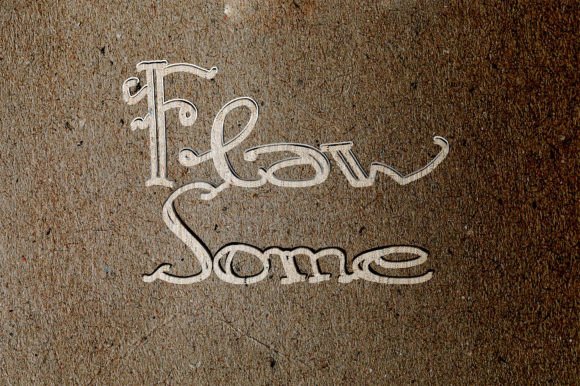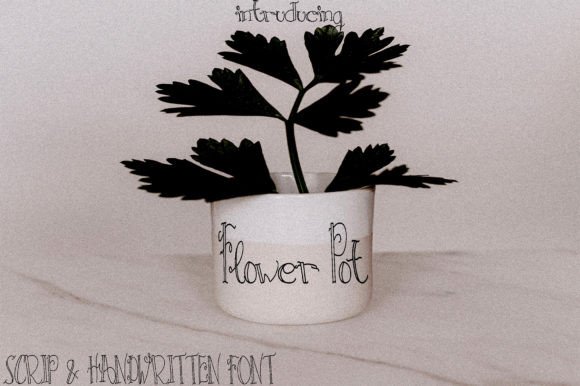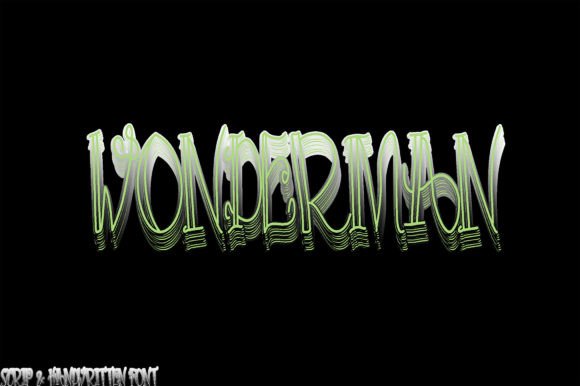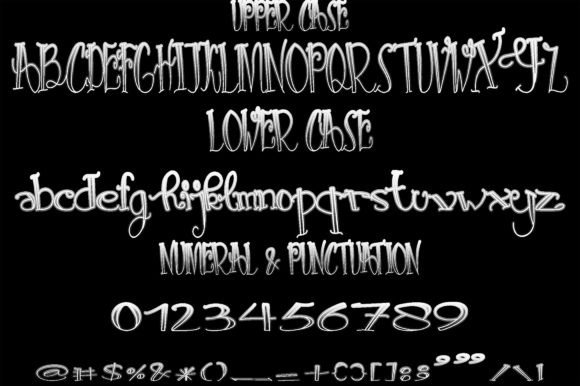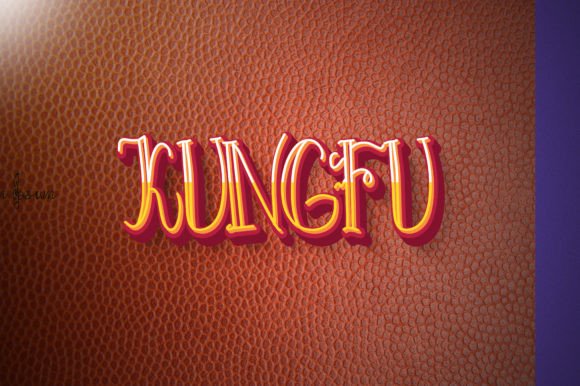
Introducing Flaw Some Font: The Ultimate Playful Handwritten Font
Are you tired of using the same old boring fonts in your designs? Look no further! Flaw Some Font is here to revolutionize your creative projects with its fun, playful, and whimsical touch. This beautiful handwritten font is perfect for designers, crafters, and anyone looking to add a dash of personality to their work.
What Makes Flaw Some Font So Special?
Flaw Some Font is a one-of-a-kind, handmade font that exudes a sense of playfulness and quirkiness. Its unique and irregular strokes make it stand out from the crowd, adding a touch of whimsy to any design. Whether you’re working on a logo, a poster, a social media graphic, or a craft project, Flaw Some Font is sure to bring a smile to your face and make your designs shine.
Key Features of Flaw Some Font
- Handwritten with love: Flaw Some Font is carefully crafted by hand, giving it a personal and human touch that’s hard to replicate with machine-made fonts.
- Whimsical and playful: This font is perfect for designs that require a dash of fun and personality.
- Quirky and irregular: Flaw Some Font’s unique strokes and imperfections make it a standout in any design.
- Multipurpose: Flaw Some Font can be used for a wide range of projects, from logos and posters to social media graphics and craft projects.
How to Use Flaw Some Font in Your Designs
Using Flaw Some Font in your designs is easy! Here are a few tips to get you started:
- Pair it with a simple font: Flaw Some Font’s playful nature makes it perfect for pairing with a simpler font to create a beautiful contrast.
- Experiment with colors: This font looks great in a variety of colors, so don’t be afraid to get creative and try out different hues.
- Add some texture: Flaw Some Font pairs well with textures and patterns, adding an extra layer of depth to your designs.
- Keep it simple: Don’t overcomplicate your design – Flaw Some Font’s playful nature can shine on its own.
Flaw Some Font is a dream come true for designers and crafters who want to add a personal touch to their work. Whether you’re creating:
- Logos and branding materials: Flaw Some Font’s unique personality makes it perfect for creating memorable logos and branding materials.
- Social media graphics: This font is perfect for creating eye-catching social media graphics that will make your followers smile.
- Posters and flyers: Flaw Some Font’s playful nature makes it perfect for creating posters and flyers that will grab attention.
- Craft projects: This font is perfect for crafters who want to add a personal touch to their projects, from scrapbooking to card making.
Flaw Some Font is a game-changer for designers and crafters who want to add a dash of personality to their work. With its playful, whimsical, and quirky nature, this font is sure to brighten up any design. So why settle for boring, generic fonts when you can add a touch of fun and whimsy to your projects? Try Flaw Some Font today and see the difference for yourself!